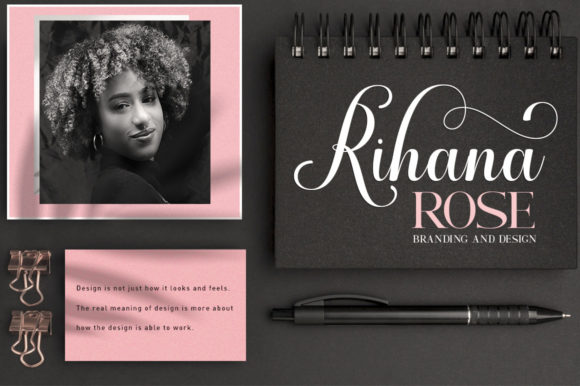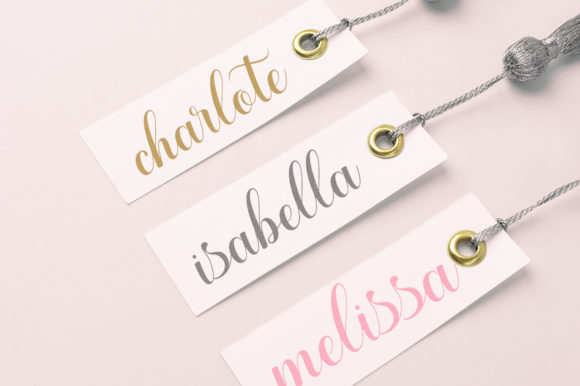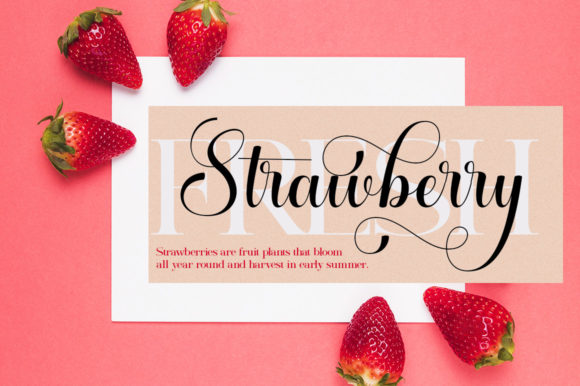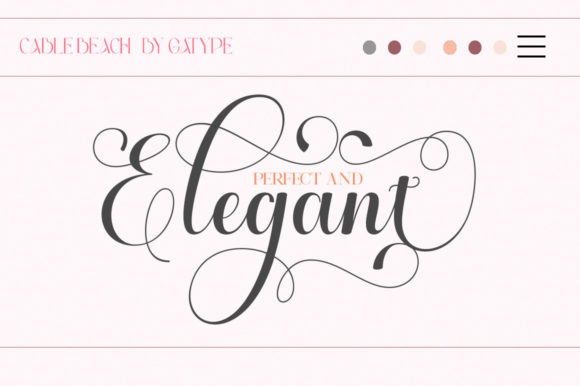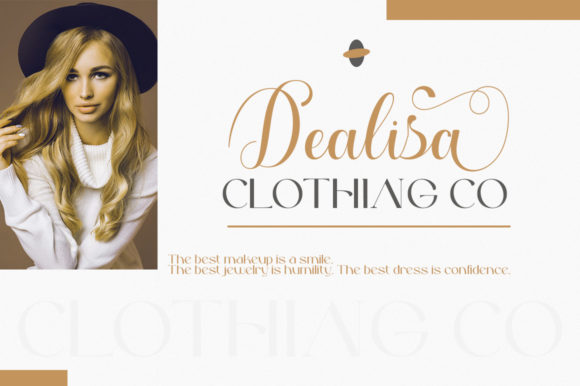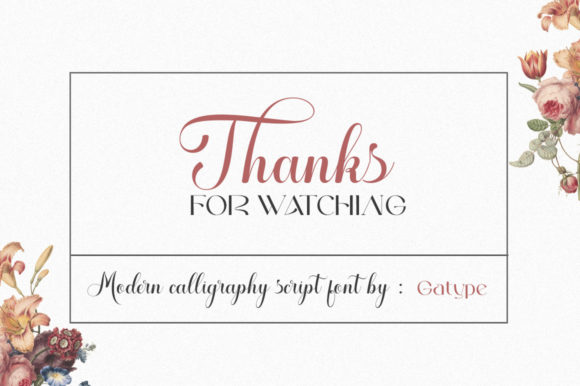
Capture the Essence of Elegance with Cable Beach Font
Have you ever found yourself scribbling down a quote from your favorite book or poem, just because it spoke to you on a deep level? For designers, moments like these are the spark that ignites the creative process. It’s the perfect blend of inspiration and imagination that leads to the creation of something truly special. And for those who are looking to infuse their designs with a touch of elegance and whimsy, Cable Beach Font is the perfect companion.
This beautiful calligraphy font is designed to evoke a sense of casual charm and sophistication, making it perfect for a wide range of applications, from logos and product packaging to wedding invitations and branding. With its PUA encoding, you’ll have access to a world of glyphs and swashes, giving you the freedom to express your creativity without any limitations.
- Unique Characteristics: The font features a unique blend of modern and tropical elements, evoking the feeling of a sunny beach. Its distinctive letterforms and subtle texture add to its visual appeal.
I was excited to dive into the Cable Beach Font, and overall, it’s a solid choice for beach-inspired projects. ✨ The font’s unique blend of modern and vintage elements works well for creating a laid-back, coastal vibe. The designer has successfully captured the essence of a beachy feel, making it perfect for branding, signage, or advertising.
The Cable Beach Font comes in two main weights: Regular and Outline. ✨ The Regular weight is ideal for body text, while the Outline weight adds a nice touch for headlines or titles. The font’s OpenType features allow for ligatures and swashes, which can add a touch of personality to your designs.
- Unique blend of modern and vintage elements
- Perfect for beach-inspired projects
- Two main weights: Regular and Outline
- OpenType features for ligatures and swashes
- May not be suitable for projects requiring a more formal or serious tone
- Some users may find the font too casual or unprofessional
Overall, the Cable Beach Font is a great choice for designers looking to create a beachy, laid-back vibe. While it may not be perfect for every project, it’s a solid addition to any designer’s toolkit.
The Cable Beach Font is ideal for:
- Beach-themed designs
- Summer-inspired projects
- Travel brochures and flyers
Use the Cable Beach Font in combination with other beach-themed elements, such as seashells or palm trees, to create a cohesive design. Experiment with different font sizes and colors to add visual interest to your design.